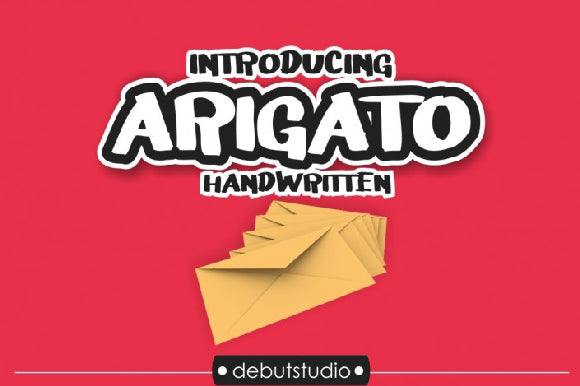
Free Arigato Display Font
Featuring the dazzling free arigato display font. Go give some love to Font Space for creating this top-notch free font. This is absolutely fancy font so you can easily make world-class designs.